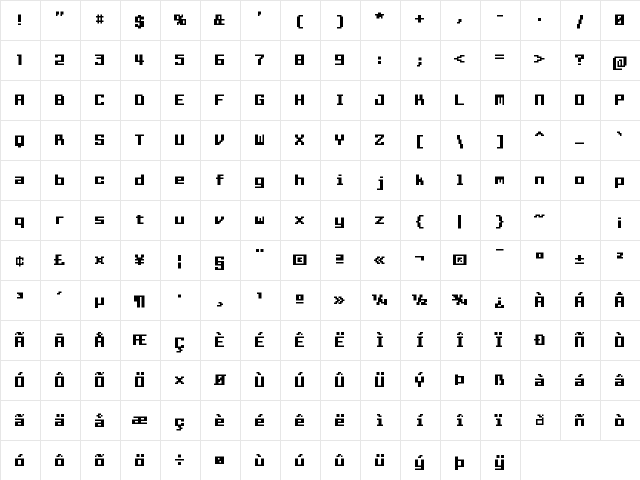
Squarewave Bold
Design Context for Squarewave Typeface
Squarewave is a composed and adaptable typeface that performs quietly and consistently across a wide range of design contexts. Its bold stroke weight gives it real presence on the page.